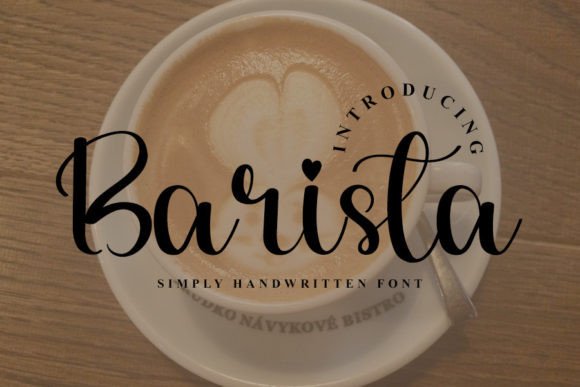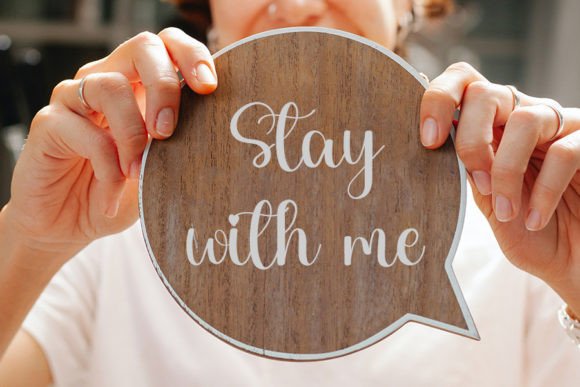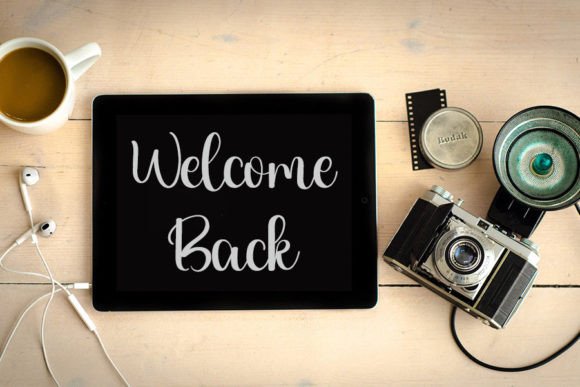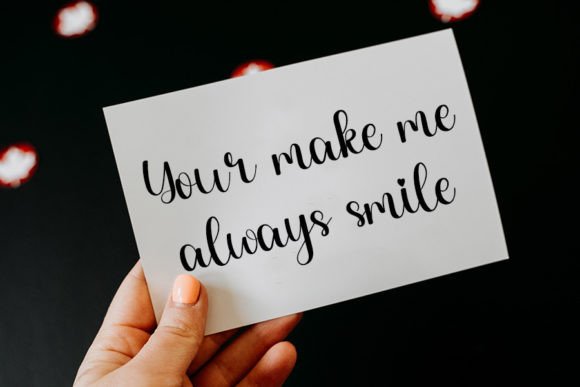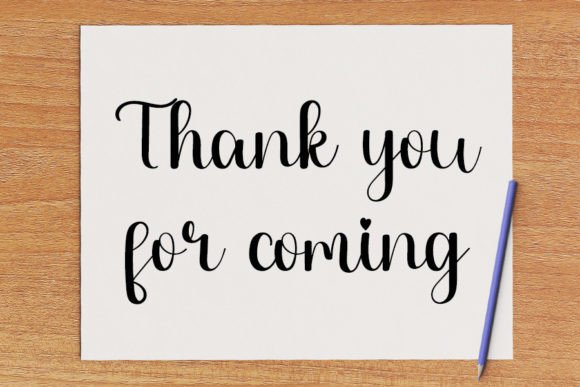
Introducing Barista Font: Elevate Your Designs with Elegance
Are you on the hunt for a font that exudes sophistication and charm? Look no further than Barista Font, a stunning handwritten typeface that is sure to capture your heart. With its elegant touch and timeless style, Barista Font is the perfect addition to your design arsenal. In this article, we’ll dive into the world of Barista Font, exploring its unique features, and how you can use it to create breathtaking designs that leave a lasting impression.
The Beauty of Barista Font
Barista Font is a meticulously crafted handwritten font that boasts an incredibly distinct and timeless style. Its elegant touch is evident in every curve and line, making it an ideal choice for designers and crafters seeking to add a touch of sophistication to their projects. Whether you’re working on a logo, branding materials, or digital content, Barista Font is sure to elevate your designs to new heights.
Key Features of Barista Font
• Handwritten Elegance: Barista Font is a beautiful handwritten typeface that adds a personal touch to any design.
• Timeless Style: Its classic and sophisticated style ensures that your designs will remain relevant for years to come.
• Distinctive Character: Barista Font’s unique character set makes it perfect for creating memorable and impactful designs.
• Versatility: Use Barista Font across various design projects, from logos and branding to digital content and more.
Why Choose Barista Font?
With so many fonts available, why should you choose Barista Font for your next project? Here are just a few compelling reasons:
• Emotional Connection: Barista Font’s elegant and handwritten nature helps create an emotional connection with your audience.
• Professionalism: Add a touch of professionalism to your designs with Barista Font’s sophisticated style.
• Creativity: Barista Font’s unique character set inspires creativity and imagination, helping you stand out in a crowded design landscape.
Using Barista Font in Your Designs
Now that you’re familiar with Barista Font’s stunning features, let’s explore how you can incorporate it into your designs:
• Logo Design: Create memorable and impactful logos that showcase your brand’s personality with Barista Font.
• Branding Materials: Use Barista Font to add a touch of elegance to your branding materials, such as business cards, brochures, and letterheads.
• Digital Content: Elevate your digital content, including social media posts, blog articles, and website headers, with Barista Font’s sophisticated style.
Tips and Tricks for Working with Barista Font
To get the most out of Barista Font, here are some valuable tips and tricks to keep in mind:
• Experiment with Colors: Pair Barista Font with a range of colors to create visually stunning designs that capture attention.
• Play with Sizes: Use Barista Font in various sizes to create visual hierarchy and add depth to your designs.
• Combine with Other Fonts: Mix Barista Font with other fonts to create unique and captivating typography.
In conclusion, Barista Font is a beautiful and elegant handwritten typeface that is sure to elevate your designs to new heights. With its timeless style, distinctive character, and versatility, Barista Font is the perfect addition to your design arsenal. Whether you’re a designer, crafter, or simply someone who appreciates beautiful typography, Barista Font is a must-have font that will inspire creativity and imagination. So why wait? Fall in love with Barista Font and create spectacular designs that leave a lasting impression!